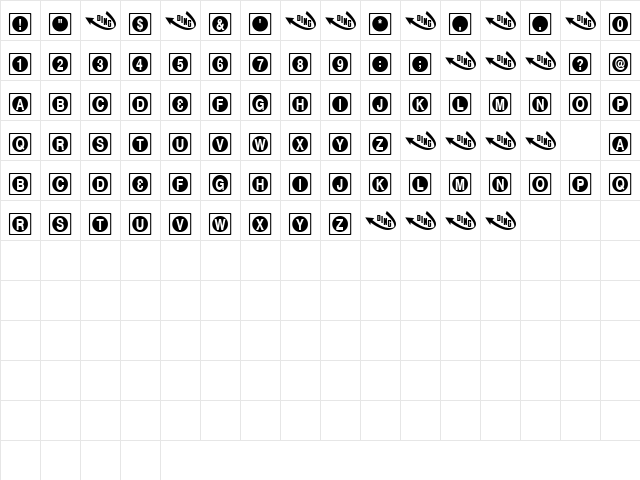
Sunrise Regular
Design Context for Sunrise Typeface
Sunrise is a composed and adaptable typeface that performs quietly and consistently across a wide range of design contexts.